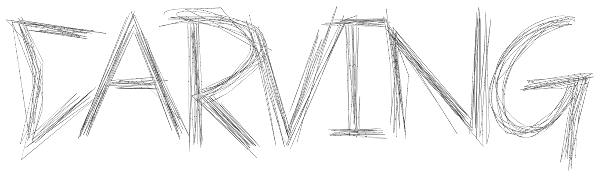
Carving
Carving is a scratched handwritten font by La Goupil Paris. With Carving, you can scratch on glass, metal, wood… or everything you want. You will have an optimal render with Photoshop’s blending mode (Multiply, Linear’s dodge...) and FX (Inner...